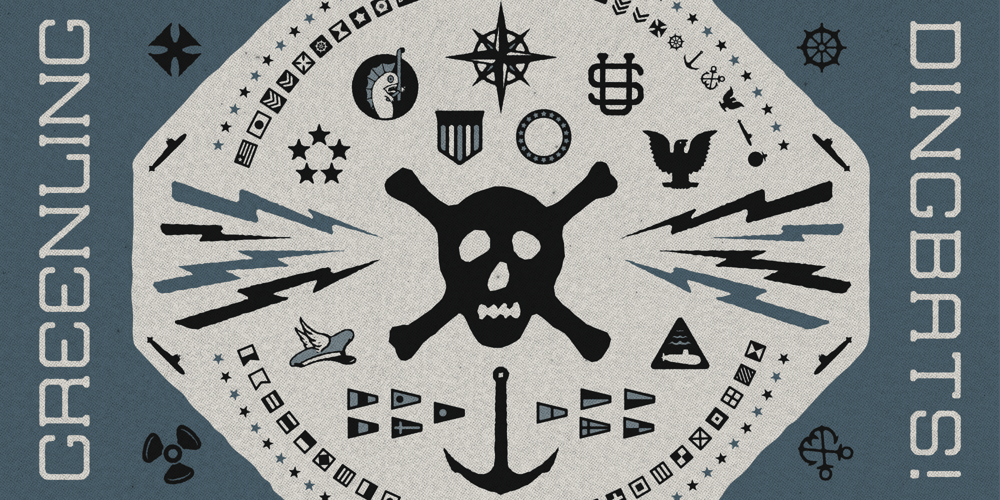
Greenling Dingbats Font Family was designed by Chad Palmer and published by Palmer Type Company. Greenling Dingbats contains 2 styles and family package options. Greenling Dingbats provides an array of symbols and insignias that were hand-drawn based on US Navy icons. As with the Greenling typeface, this comes in both Regular and Rough styles, so you have flexibility in your desired look. Enjoy!